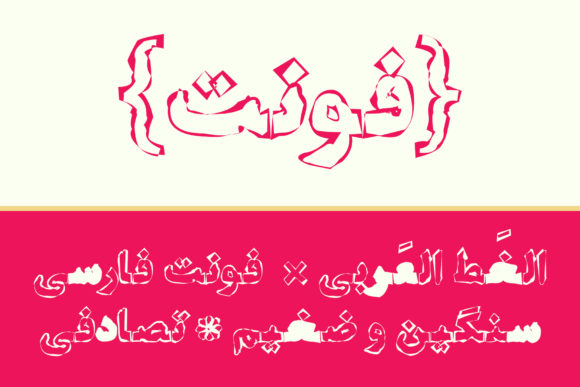
What I Love About Bulb ✨
- ✅ Elegant and sophisticated design that’s perfect for display text
- ✅ Supports Persian and Arabic languages, making it a great choice for multilingual projects
- ✅ Highly legible, even at large sizes
- ✅ Great for creating eye-catching headlines, titles, and captions
While Bulb is an amazing font, there are a few things to keep in mind. For example, ⚠️ it may not be the best choice for body text or smaller font sizes, as it can be a bit too ornate. Additionally, ⚠️ some users may find the font’s stylistic alternates a bit limited.
The Story Behind Bulb Font
The Bulb font was designed with the goal of creating a beautiful, elegant display font that would showcase the beauty of Persian and Arabic languages. The designer, inspired by traditional Middle Eastern typography, aimed to create a font that would be both modern and timeless. The result is a stunning font that’s perfect for creating eye-catching designs that demand attention.
Q: What languages does Bulb support?
A: Bulb supports Persian and Arabic languages, making it a great choice for multilingual projects.
Q: Is Bulb suitable for body text?
A: While Bulb is an amazing font, it’s best suited for display text, titles, and captions. For body text, you may want to consider a more legible font.